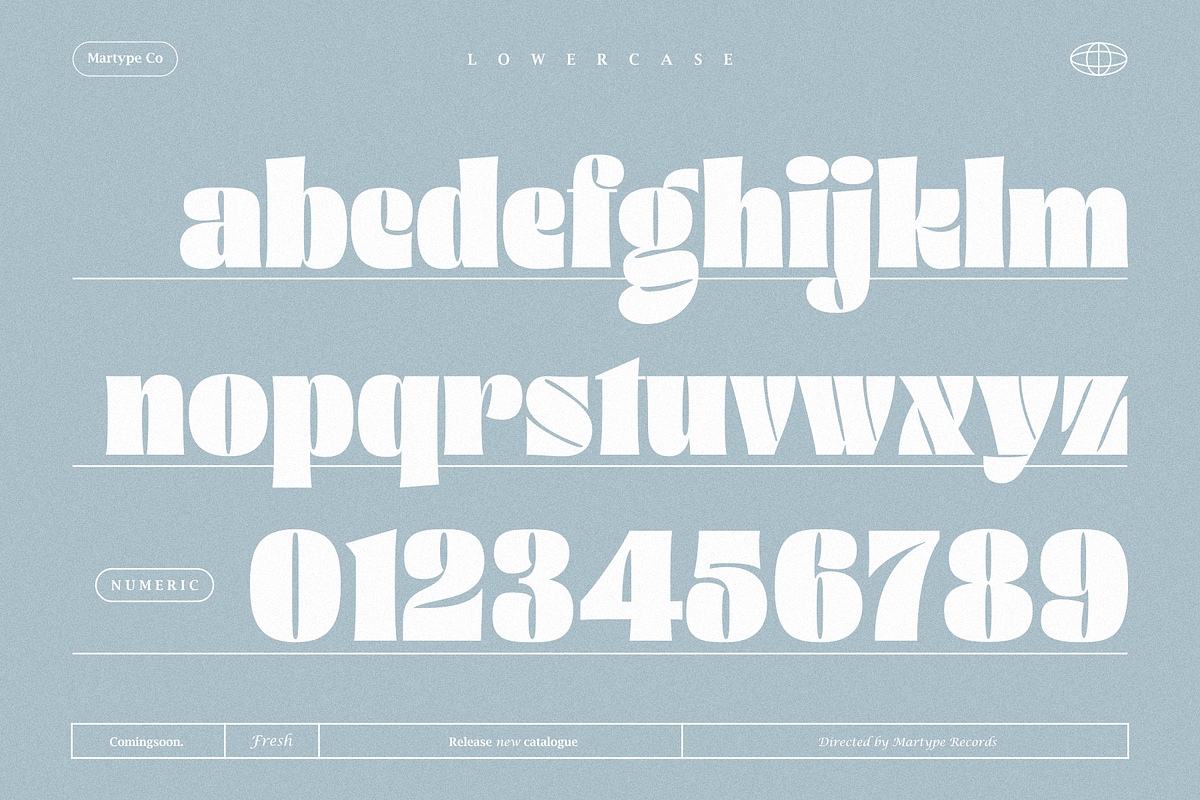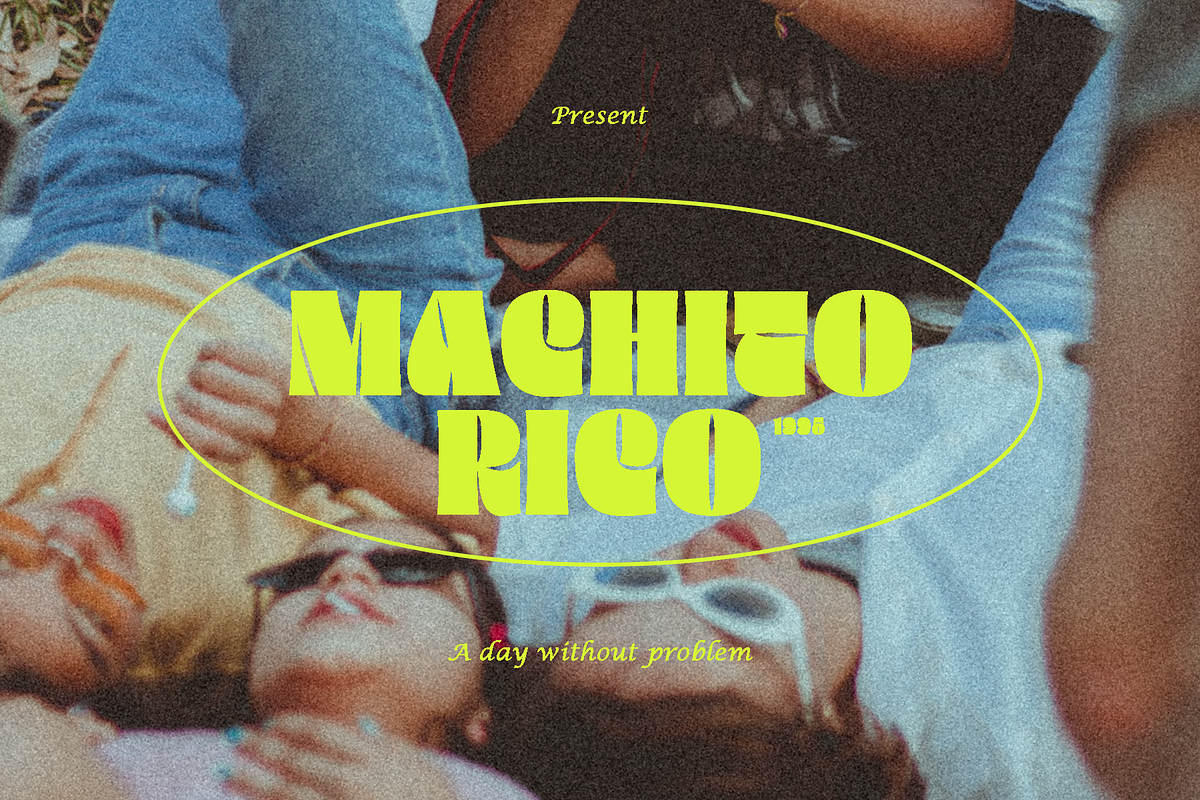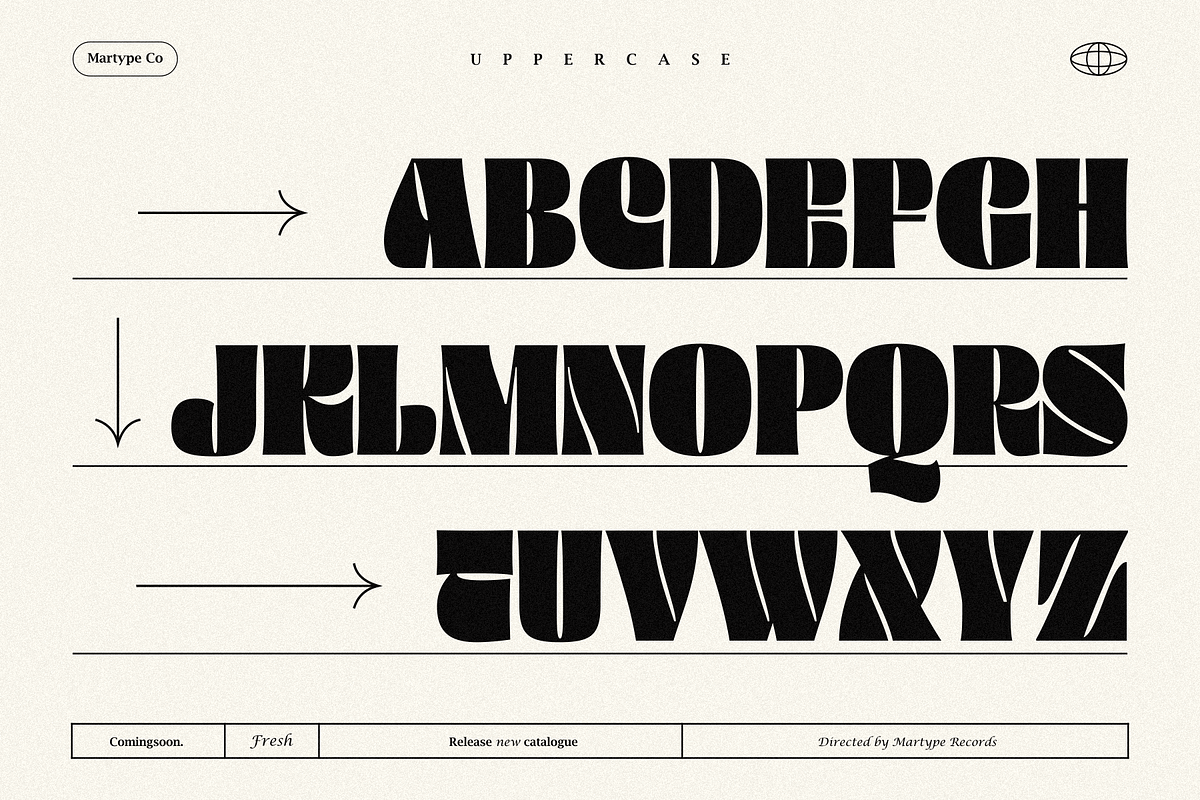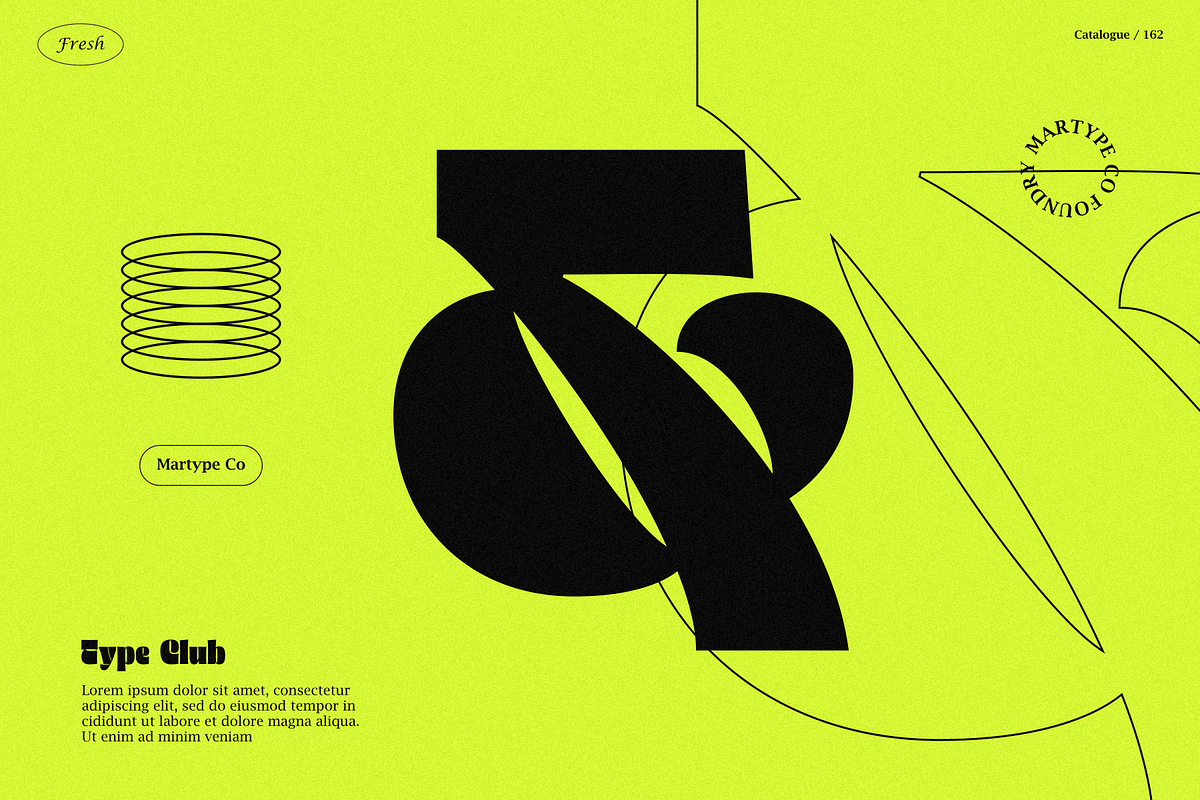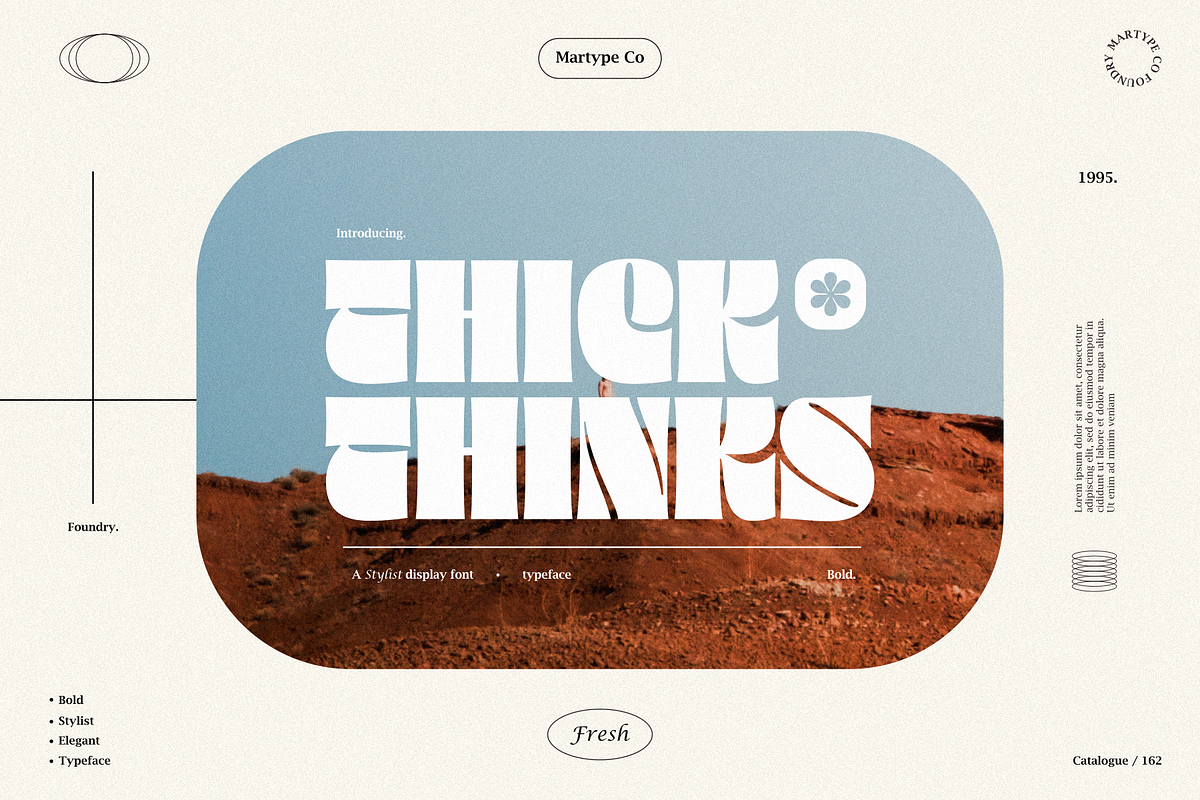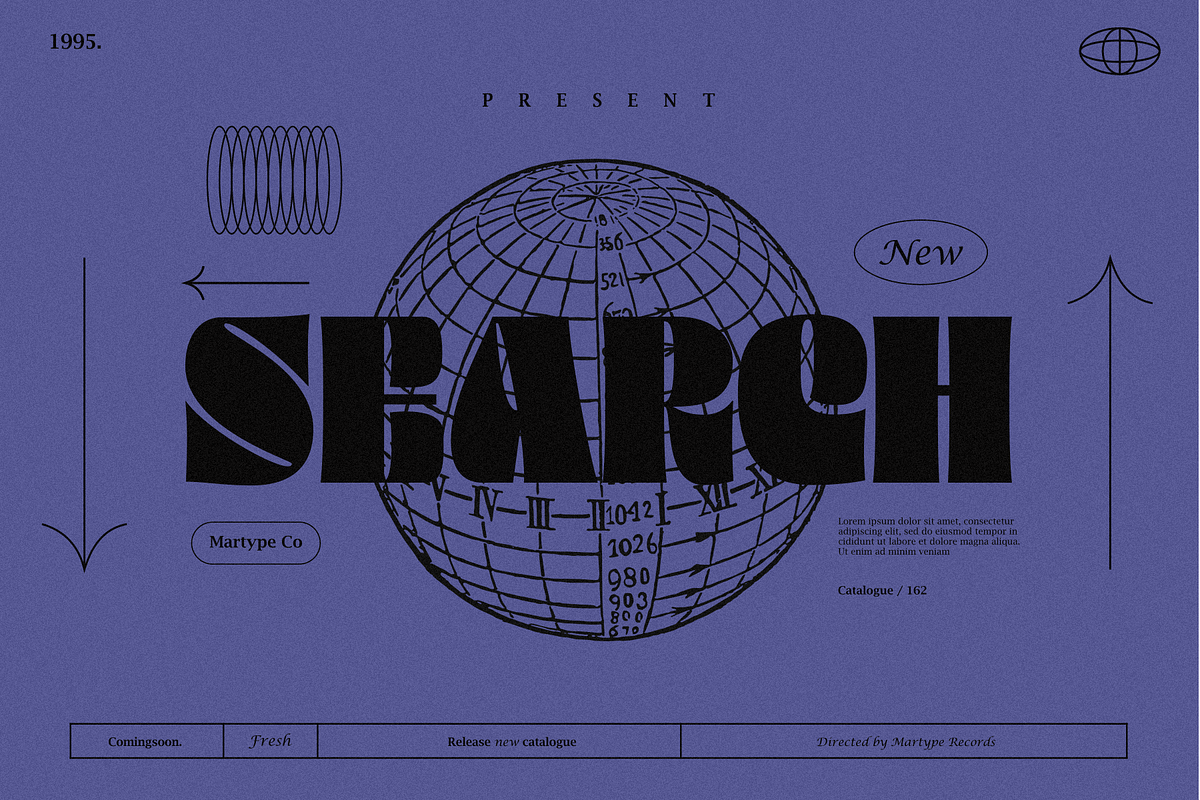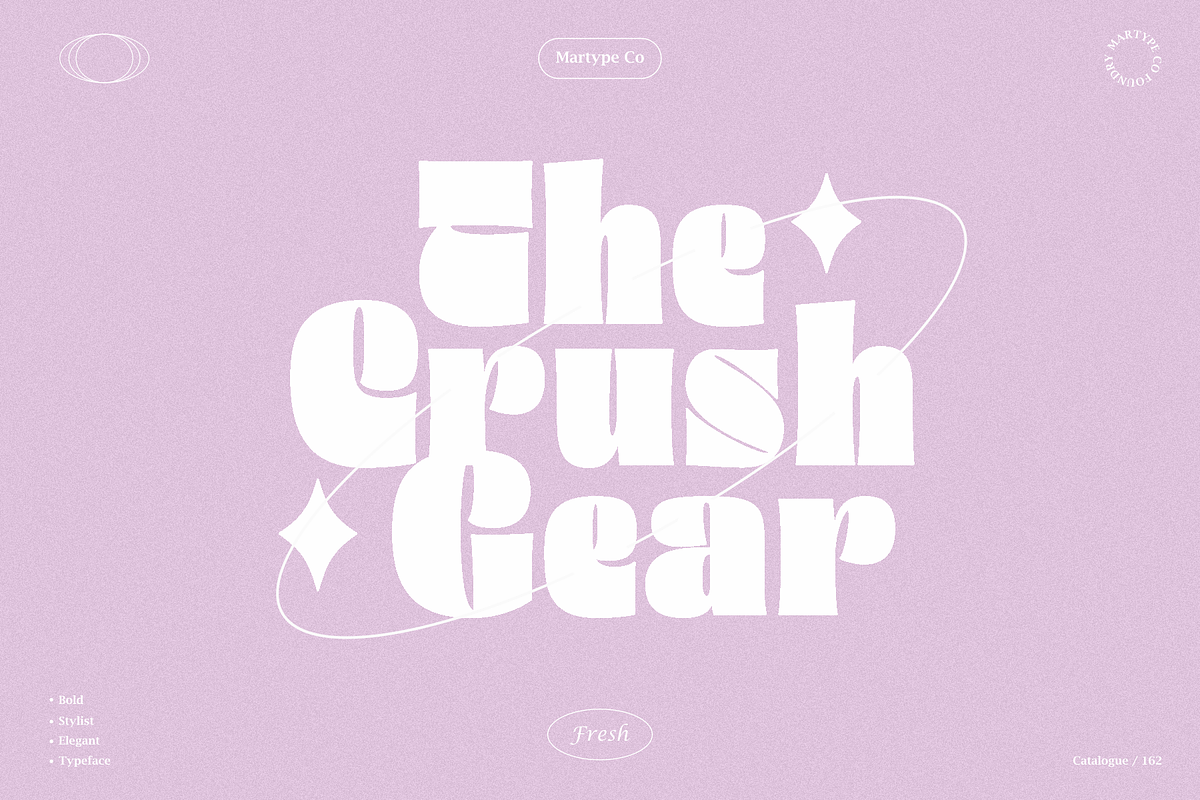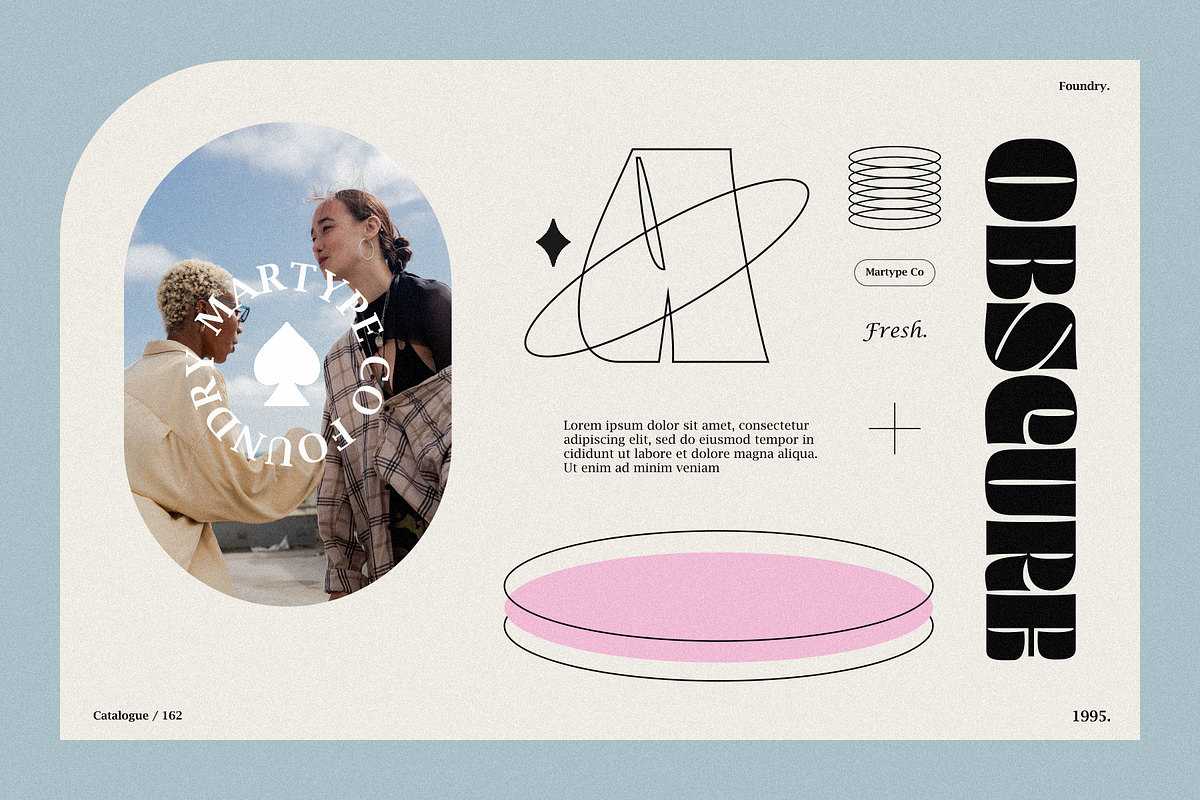
Thick Thinks - Display Font
Introducing Thick Thinks, brand new display font with quirky letterforms, perfect and suitable for branding, headline, logotype, sticker, editorial design, and etc. Comes with emoticon symbol and arrows inside the glyph.